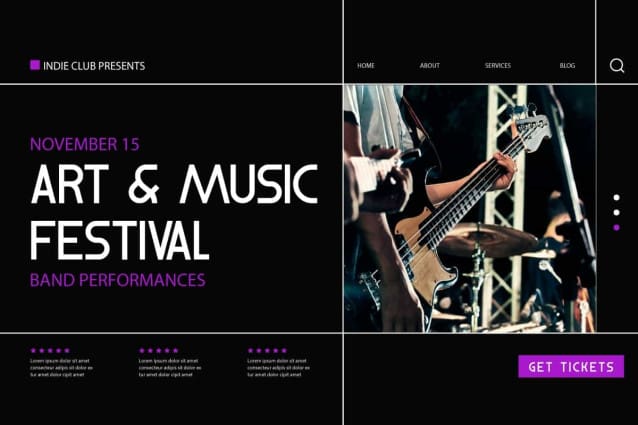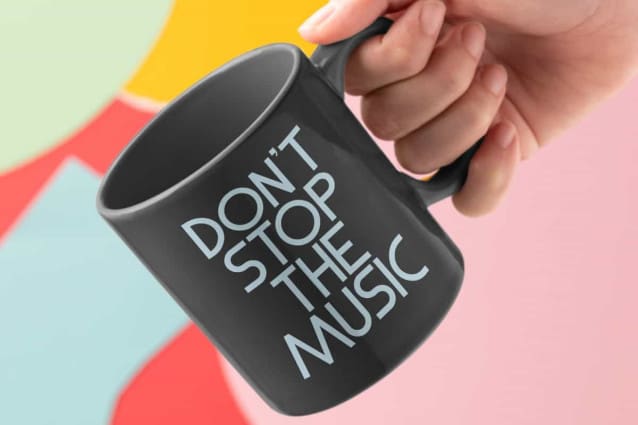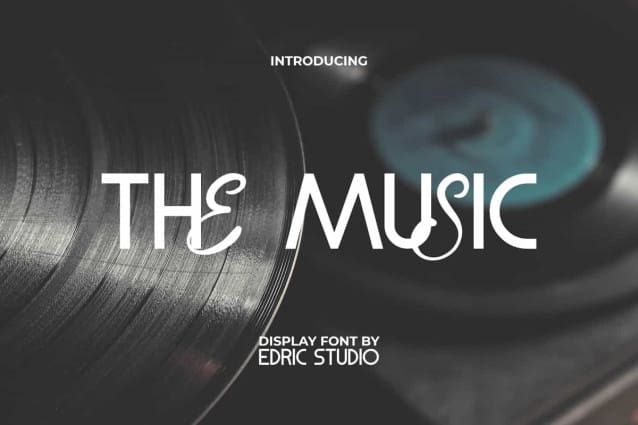
The Music Font
The Music Font is a creative font with combination of two different style on 1 font family. This font was created by EdricStudio with a combination of a modern sans serif font for uppercase and a script font for lowercase. It would be ideal for art, café, comic, event organizer, fashion, furniture, graphic design, handicraft, movie, music, restaurant, writer, and many more!
The Music Font comes with a full set of Uppercase and Lowercase Basic Characters, Number, Punctuation, and Symbol. This font can give a different impression with the combination of letter types it has and still easy to read to complement any project, including: brand image, cover, custom design, flyer, header, invitation, label, menu, poster, product packaging, quote, screen print, signage, stationery, sticker, title, website, etc.